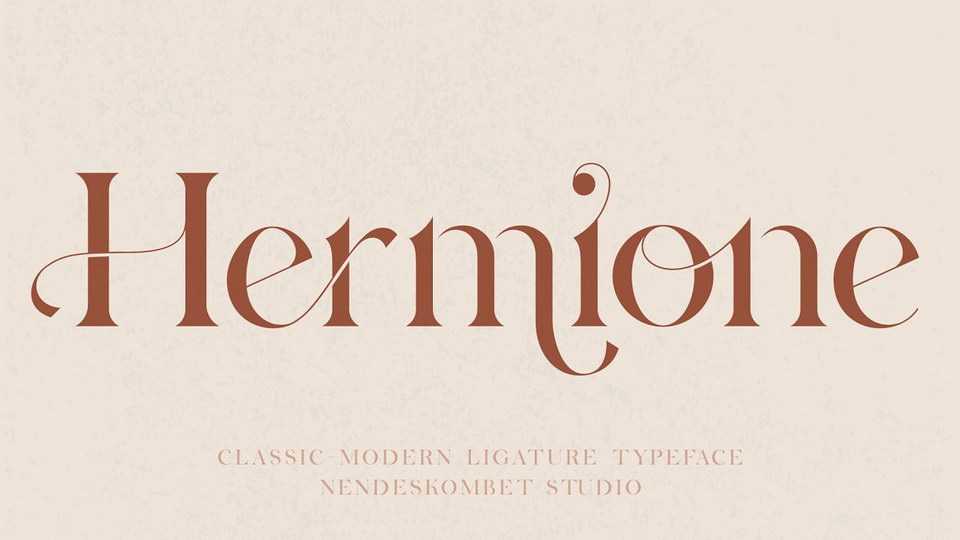
Download Hermione font, a stylish serif font that is classic, elegant and unique font that uses ligatures to smoothly link letters. Hermione is perfect for branding, logos, invitation, masterheads and more.
Designer: Nendes Kombet